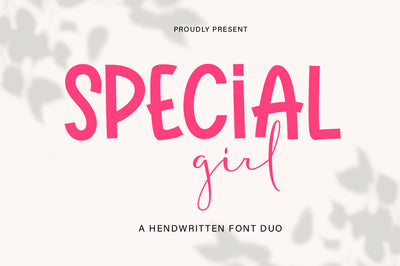
Special Girl
Introducing SPECIAL GIRL Font Duo, a nicely handled, casual and dynamic font, bold and irregular underlines. Contains a complete set of lowercase, uppercase, alternative, ligatures, punctuation marks, numbers and multilingual support. And the addition SPECIAL GIRL Get some inspiration from the preview above. This font is ideal for use in watercolor designs or bold handwritten styles, such as posters, wedding elements, t-shirts, apparel, book covers, business cards, greeting cards, branding, merchandise, invitations and handmade quotes and more. .